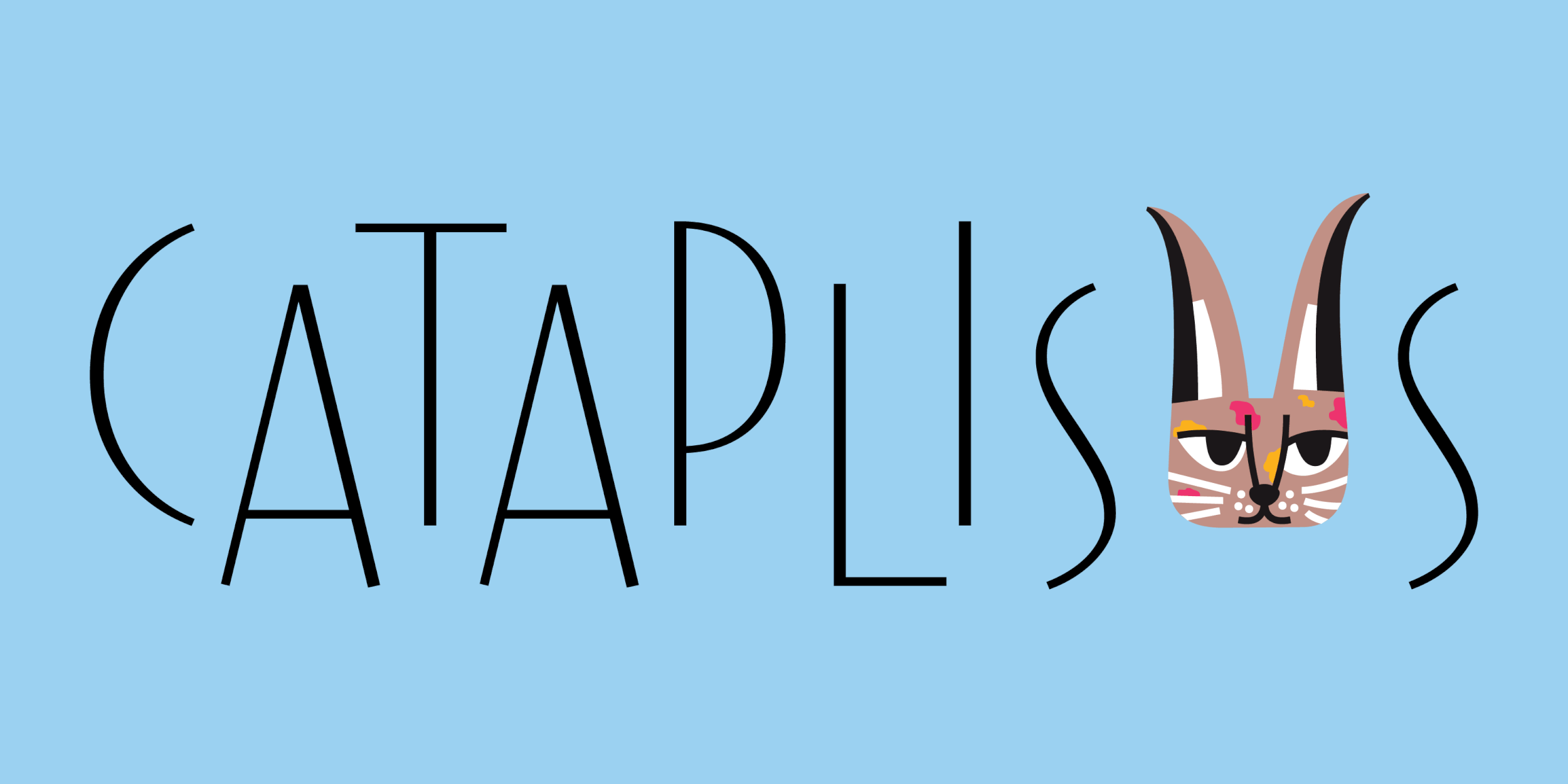
Cataplisms
Cataplisms is a project by Dark ‘n’ Light, an online magazine that explores science, nature, social justice and culture, through the arts and humanities. Curated by Cara Tejpal, Cataplisms meets at the intersection of cats and capitalism to explore the world through a feline lens.
My contribution to the project was a cheeky identity system that pairs playful Art Deco inspired lettering with a succession of cat illustrations that complement different themes explored through this effort. The goal was to create a visual interpretation which was witty and mischievous, but didn’t resort to stereotypical portrayal of cats. The caracal, with its large tufted ears, provided inspiration for the Cataplisms cat. The lettering struck a fine balance between elegant and light-hearted, and created a canvas for the illustrations to shine.
In addition to the primary identity scheme, I designed logos for two main sub-categories under Capitalisms: Cat Fight, pairs of essays that debate a given subject, and Herding Cats, a series of thematic short films.
Before we zeroed in on this design direction, a couple of other options were also explored. Typographically, these experimented with Latin lettering drawn with a Devanagari pen angle, or with reverse contrast.